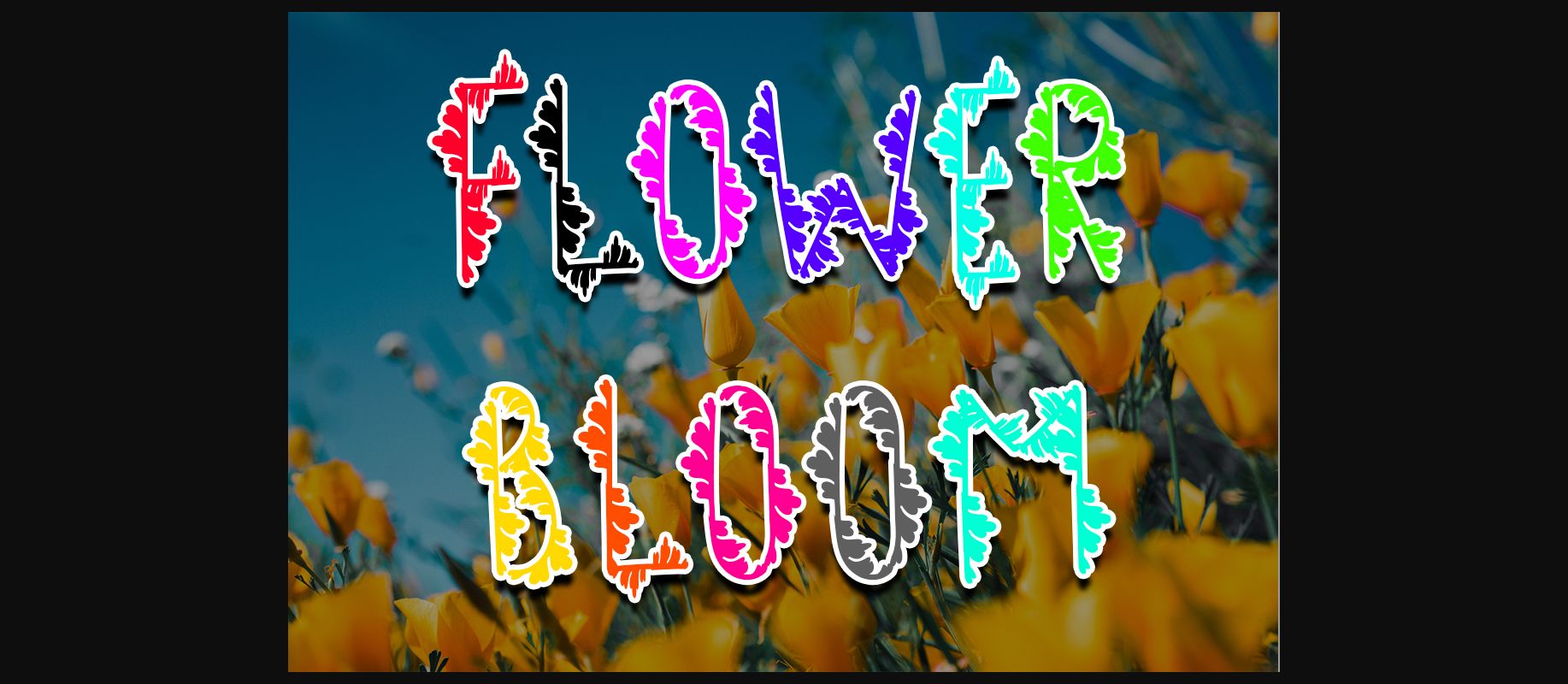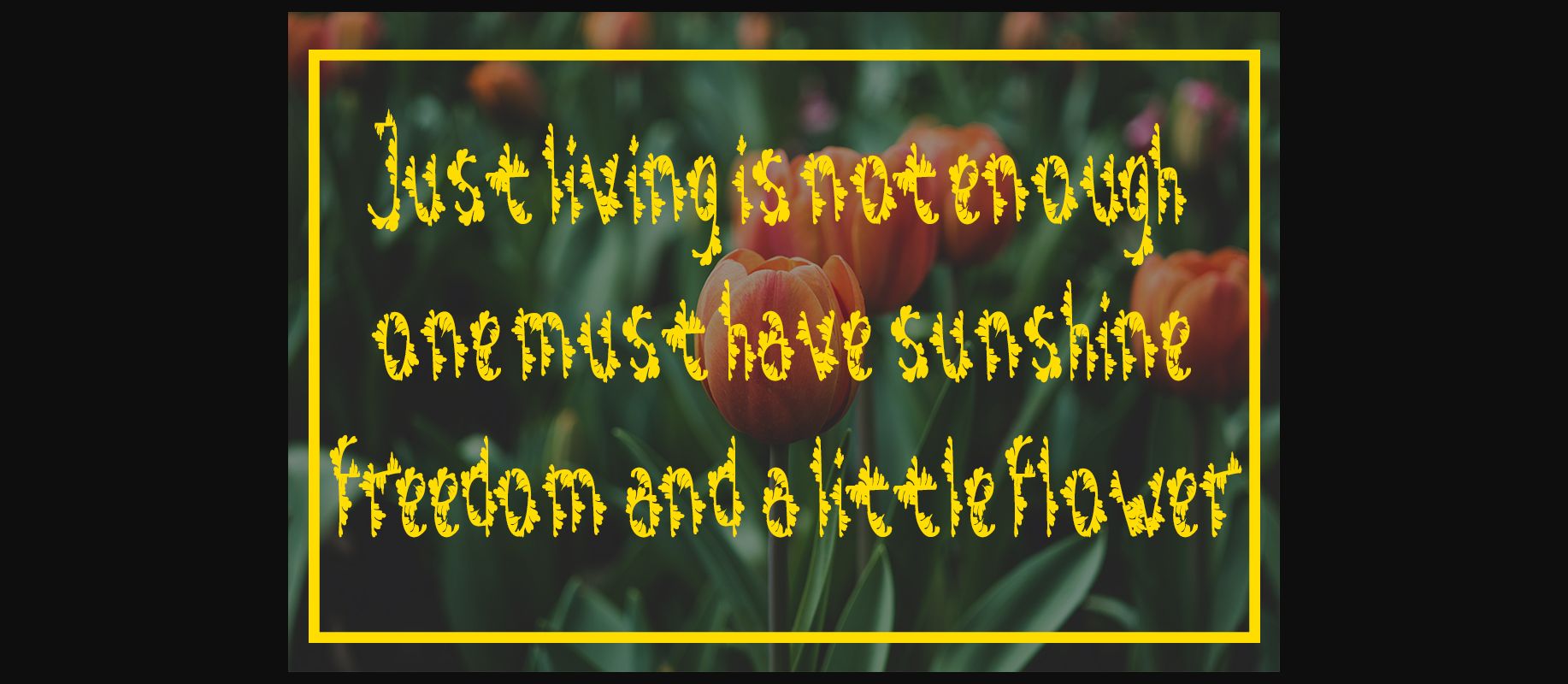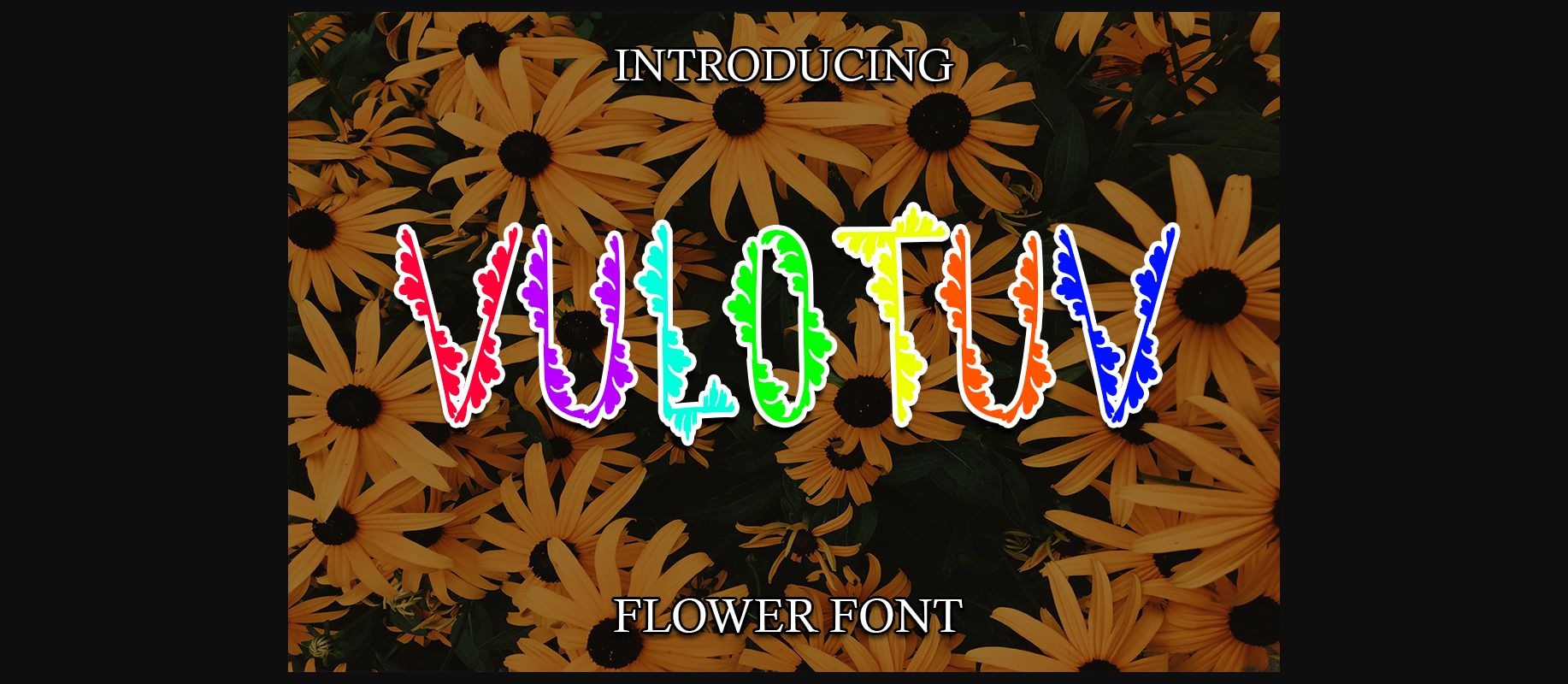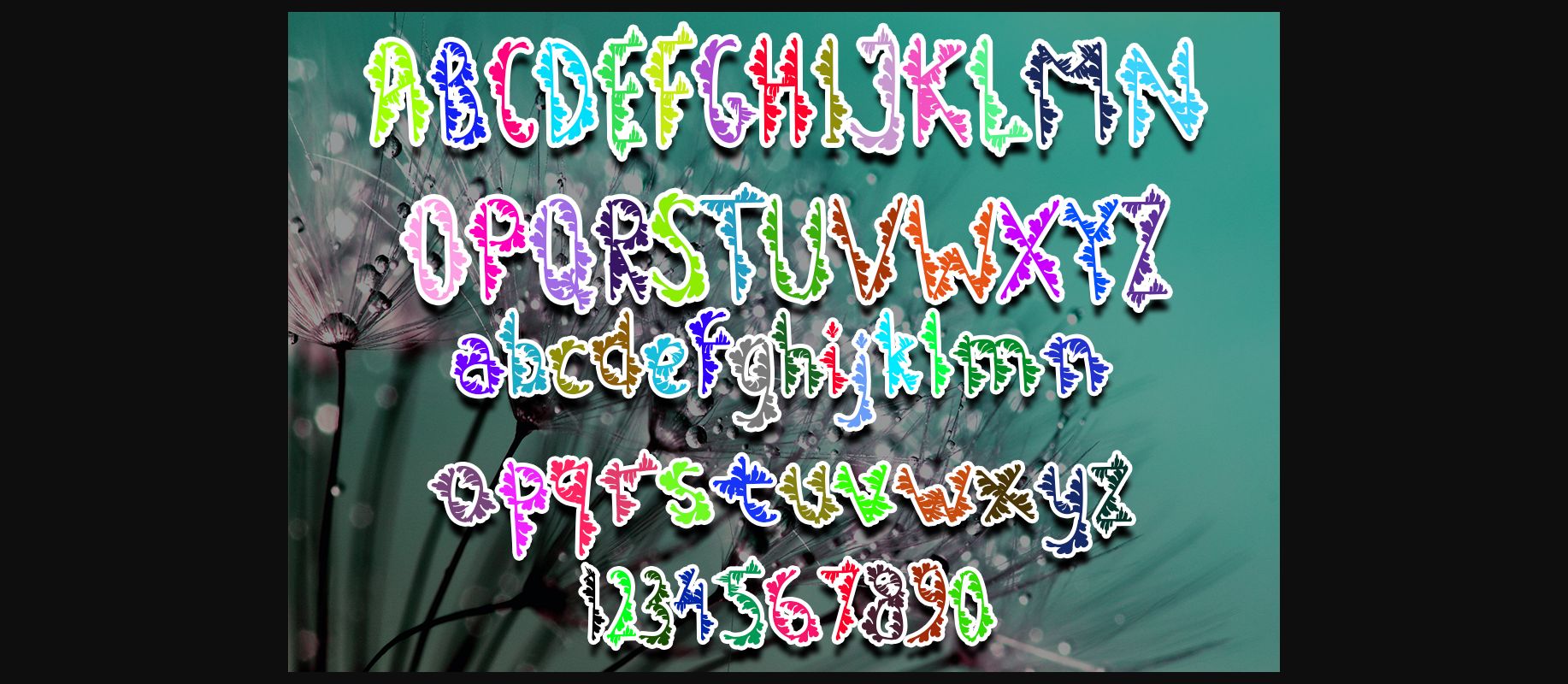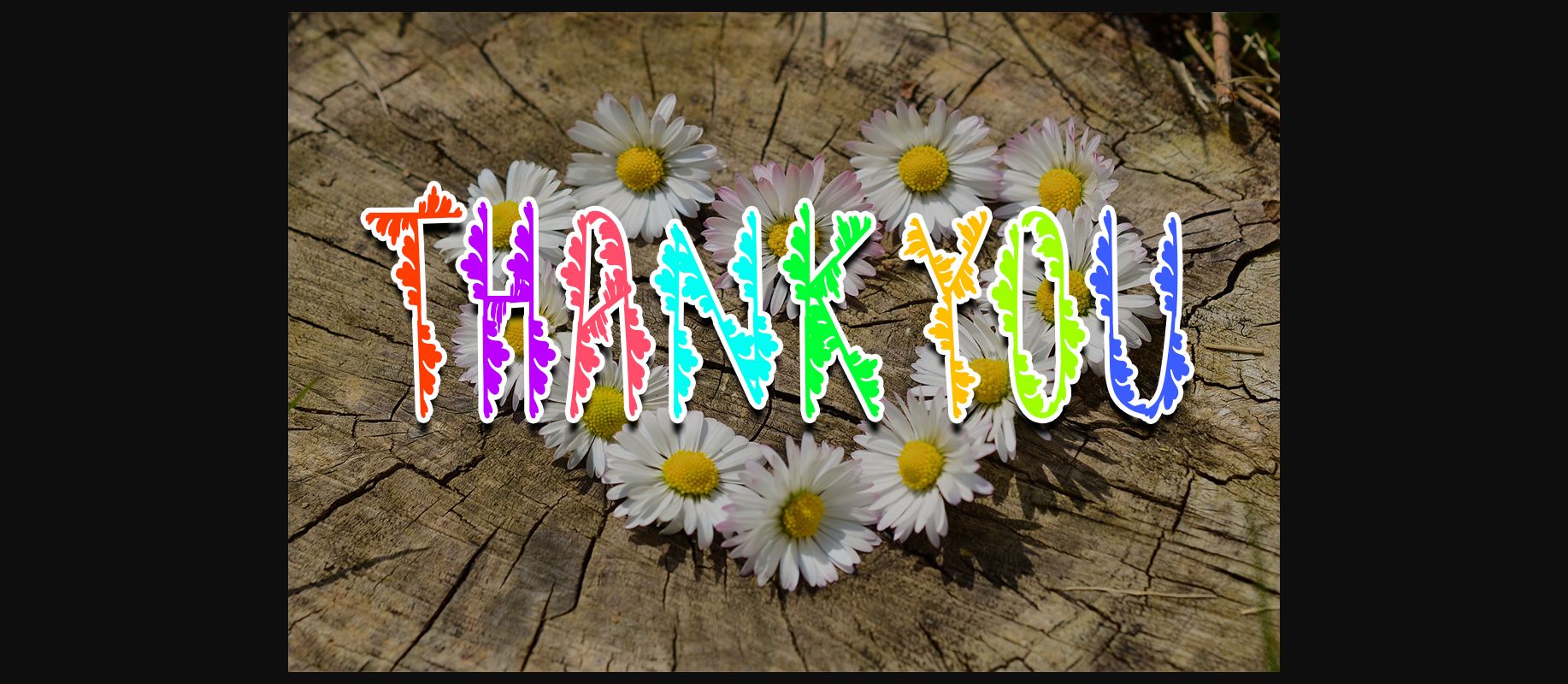
Vulotuv Flower Font
About Vulotuv Flower Font
The Vulotuv Flower is an unique typeface with flower shaped letters. It’s suitable for various purposes such as children’s greeting cards.